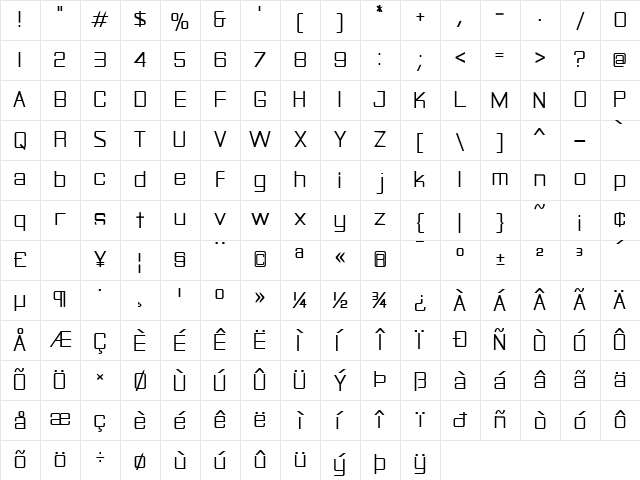
Complete Rational Integer Regular glyph index. Displaying only characters natively supported by Rational Integer Regular font.
Rational Integer is a composed and adaptable typeface that performs quietly and consistently across a wide range of design contexts.